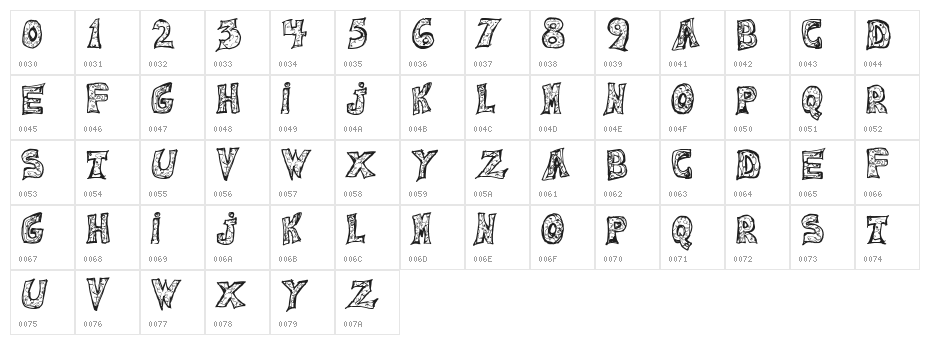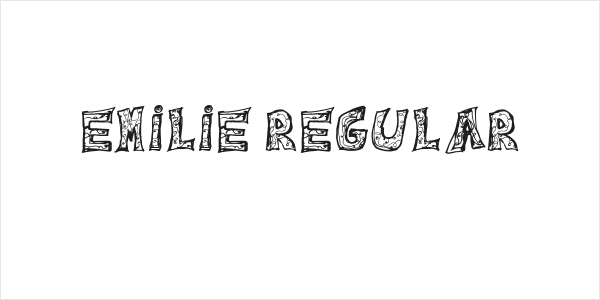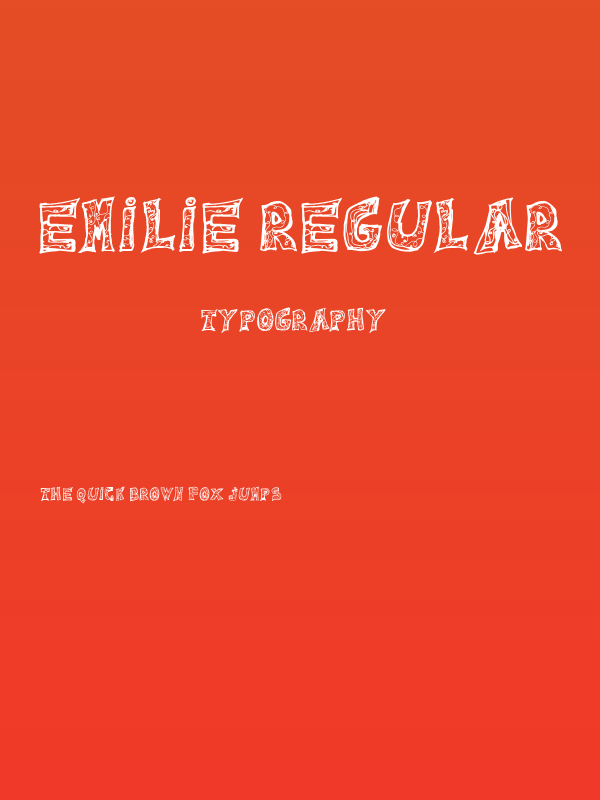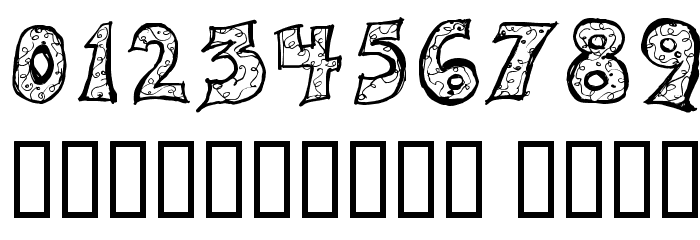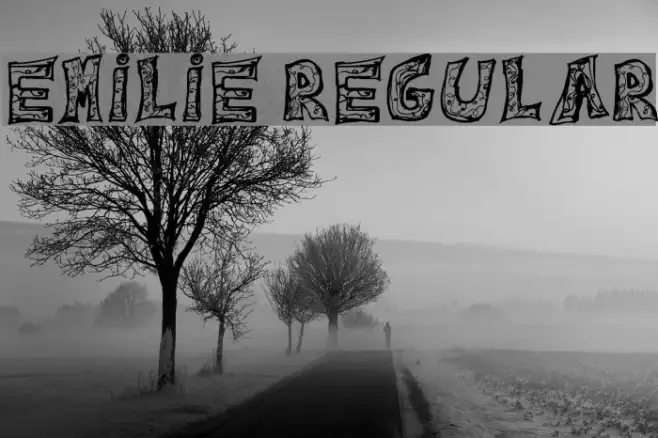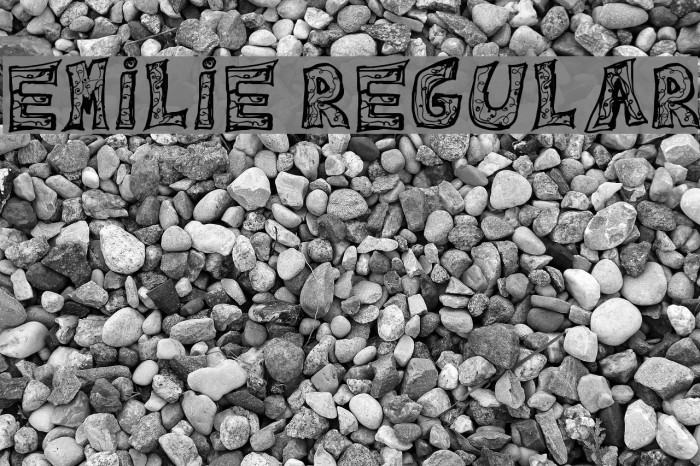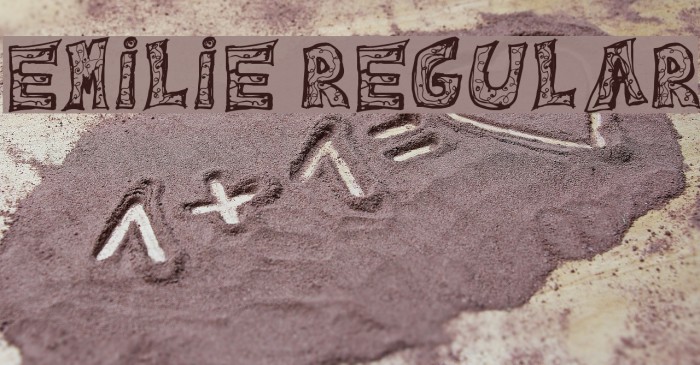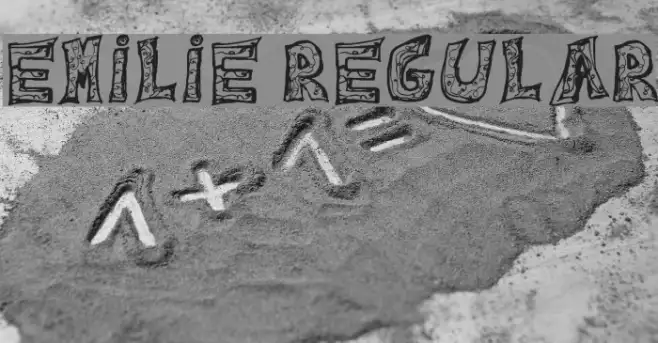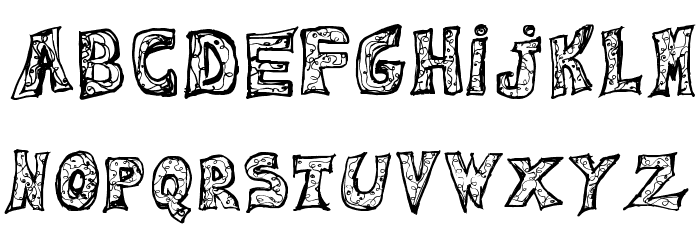
Emilie Regular Font
Emilie Regular Description
This font features a highly decorative and artistic style, characterized by its intricate and playful design elements within each character. The letters are bold and have a hand-drawn appearance, with unique patterns and textures that give them a whimsical and dynamic look. The font's irregular shapes and detailed embellishments make it stand out, adding a creative and lively touch to any project. Its distinct style is reminiscent of graffiti or street art, making it perfect for designs that require a bold and unconventional aesthetic.
| Proposed Projects | Ideal for posters, album covers, children's book titles, and any project needing a creative and artistic flair. |